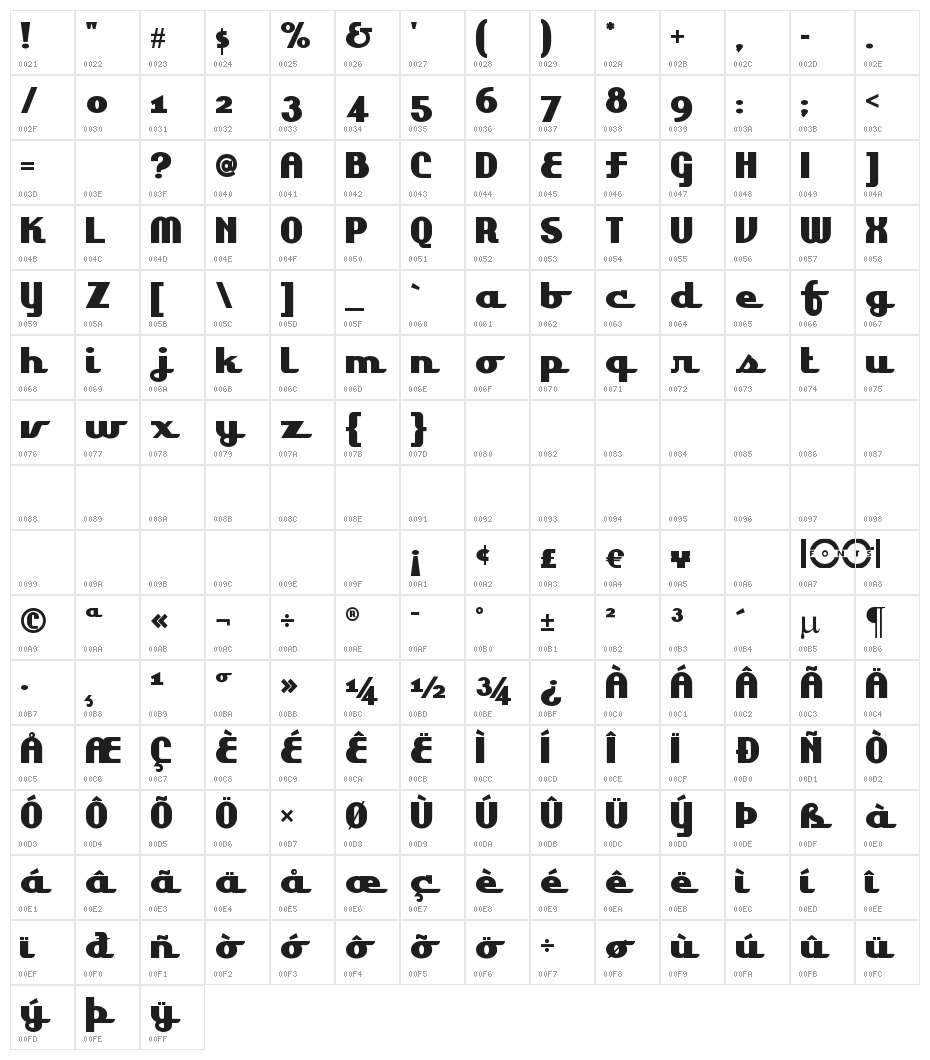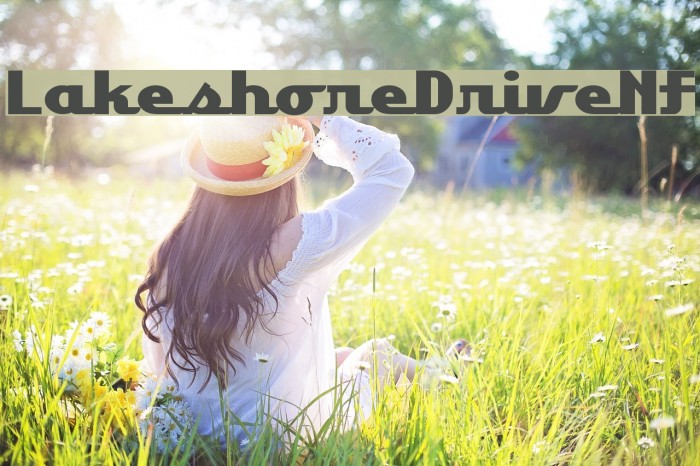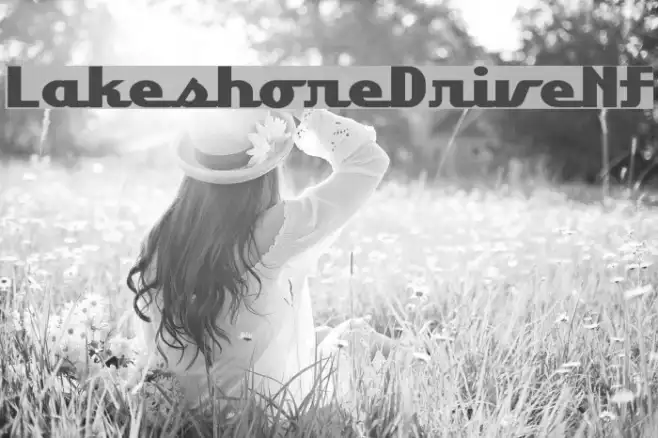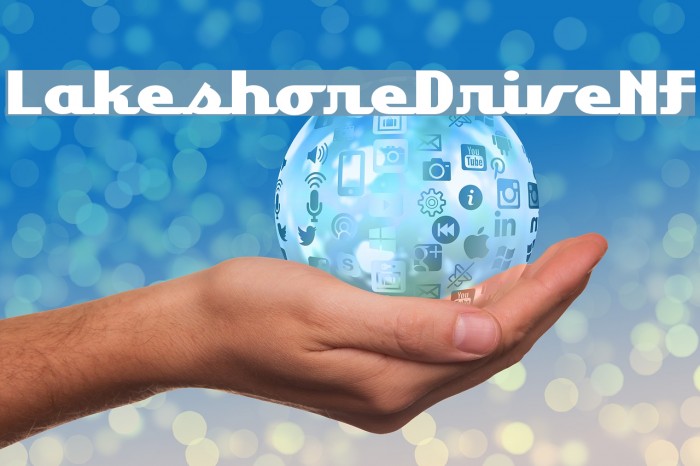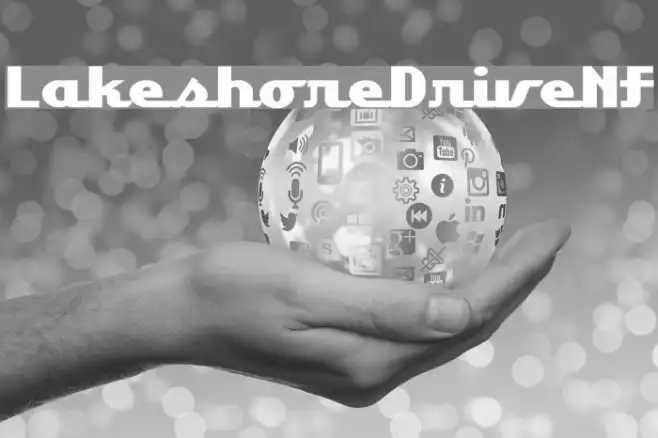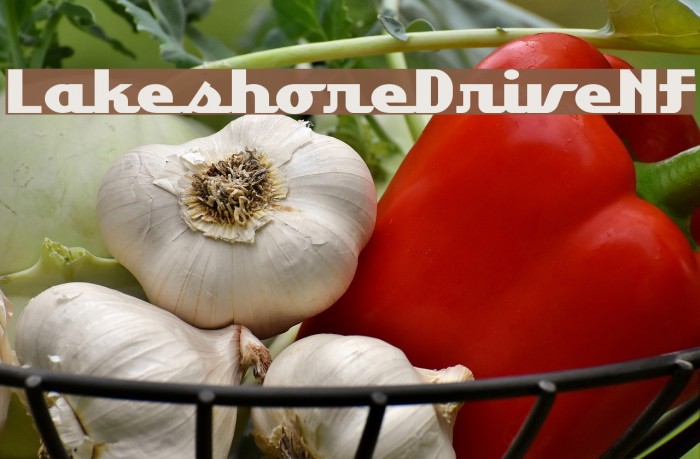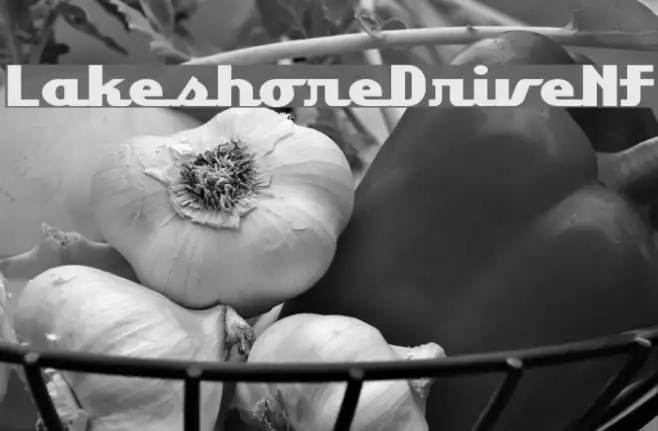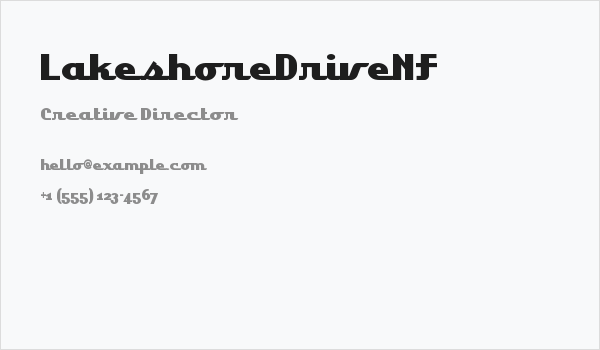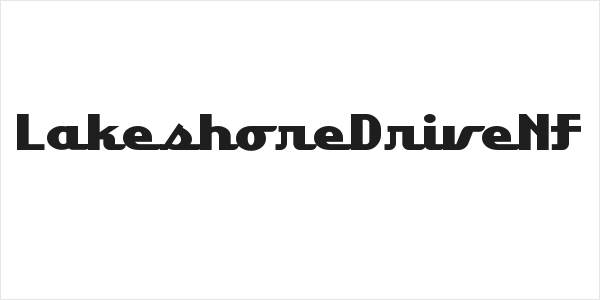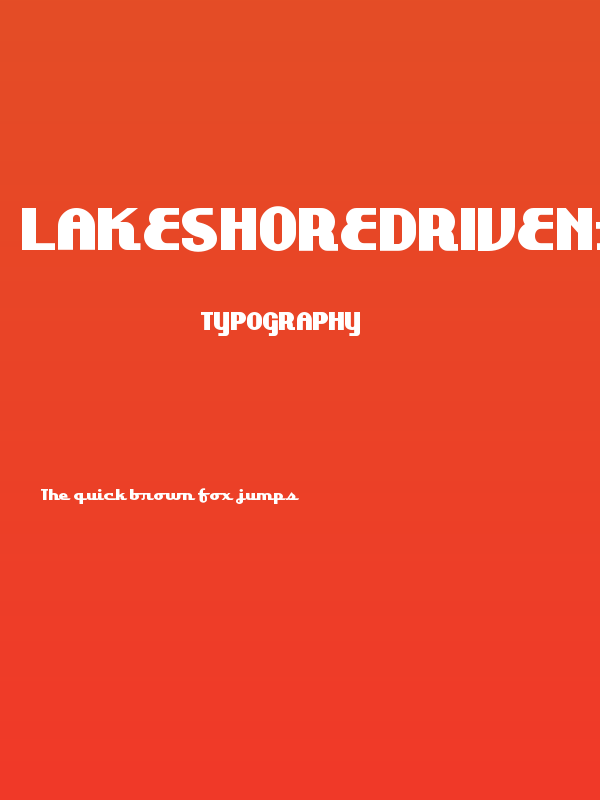
LakeshoreDriveNF Font
LakeshoreDriveNF Description
This font features a bold and striking design with a distinct vintage flair. The uppercase letters are characterized by thick, block-like forms with rounded edges, giving them a strong presence. The lowercase letters maintain a similar weight but introduce more curves and fluidity, adding a touch of elegance. Numbers are equally bold, ensuring readability and impact. Special characters are designed to match the overall style, with a consistent thickness and rounded forms. This font's unique blend of boldness and vintage charm makes it suitable for projects that require a strong visual statement.
| Proposed Projects | Ideal for retro-themed posters, branding, headlines, and signage that require a bold statement. |